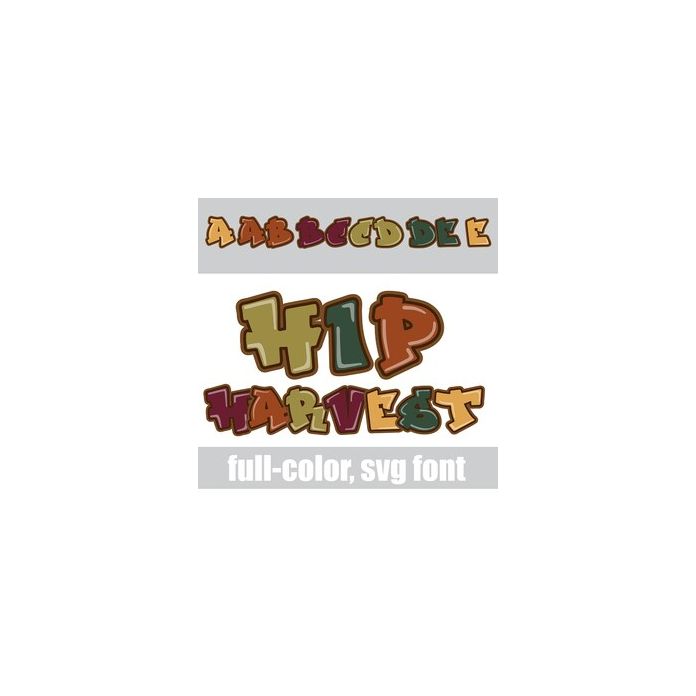
This full-color font features graffiti style lettering in a harvest color palette. There is an alt case w/ additional colors you can access through your system or Silhouette's glyph map.